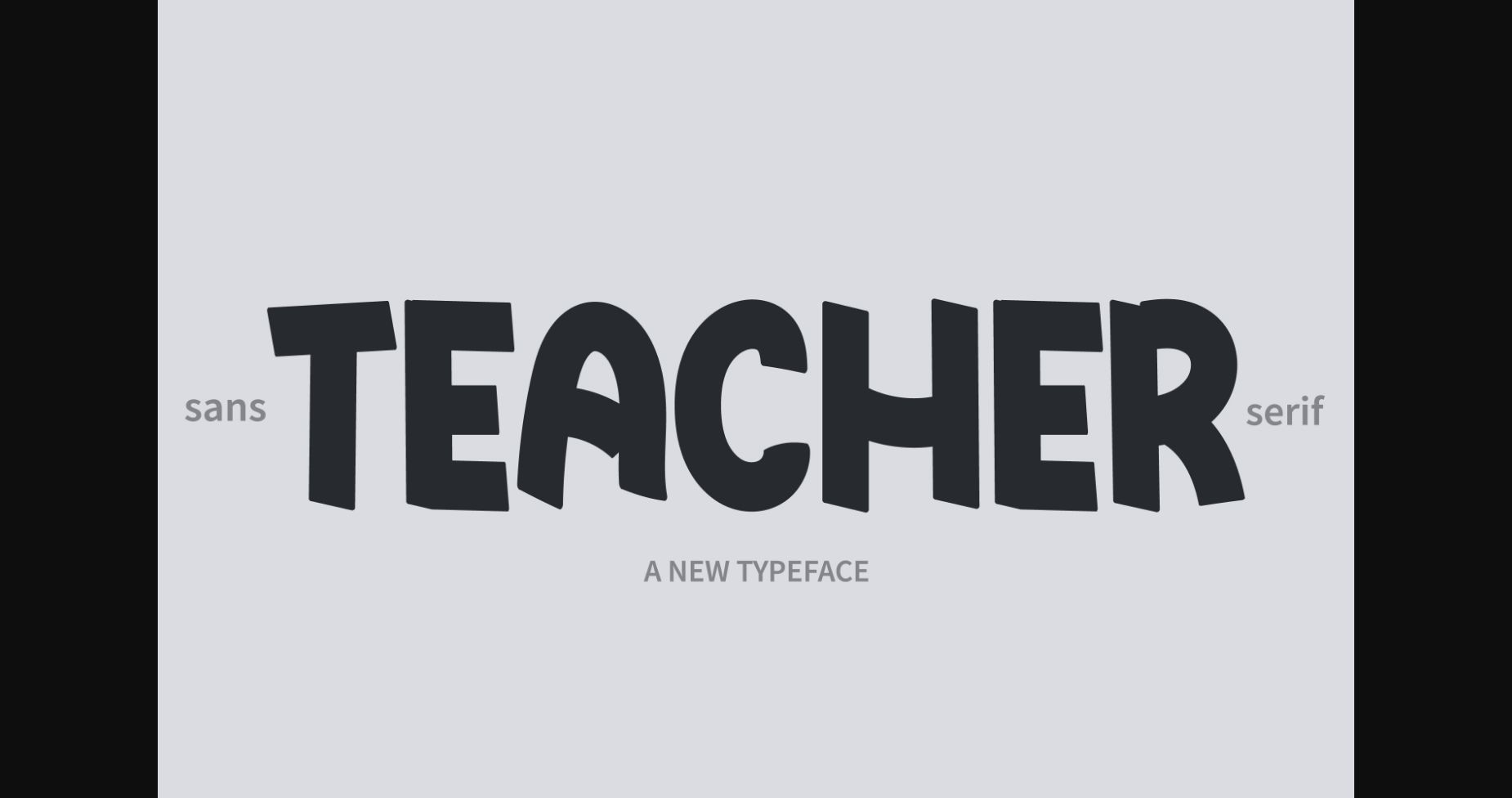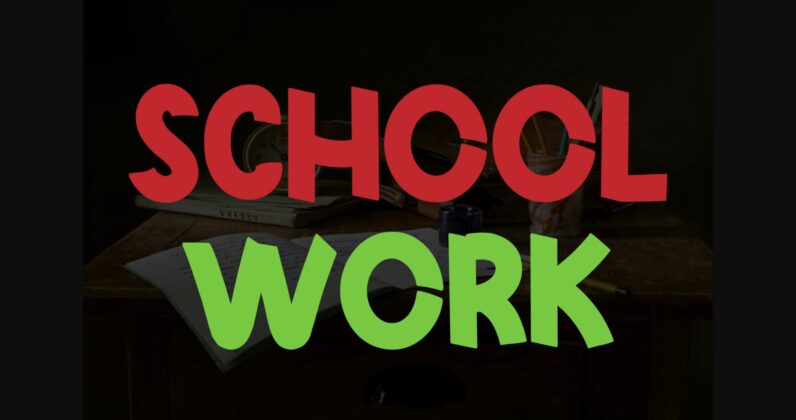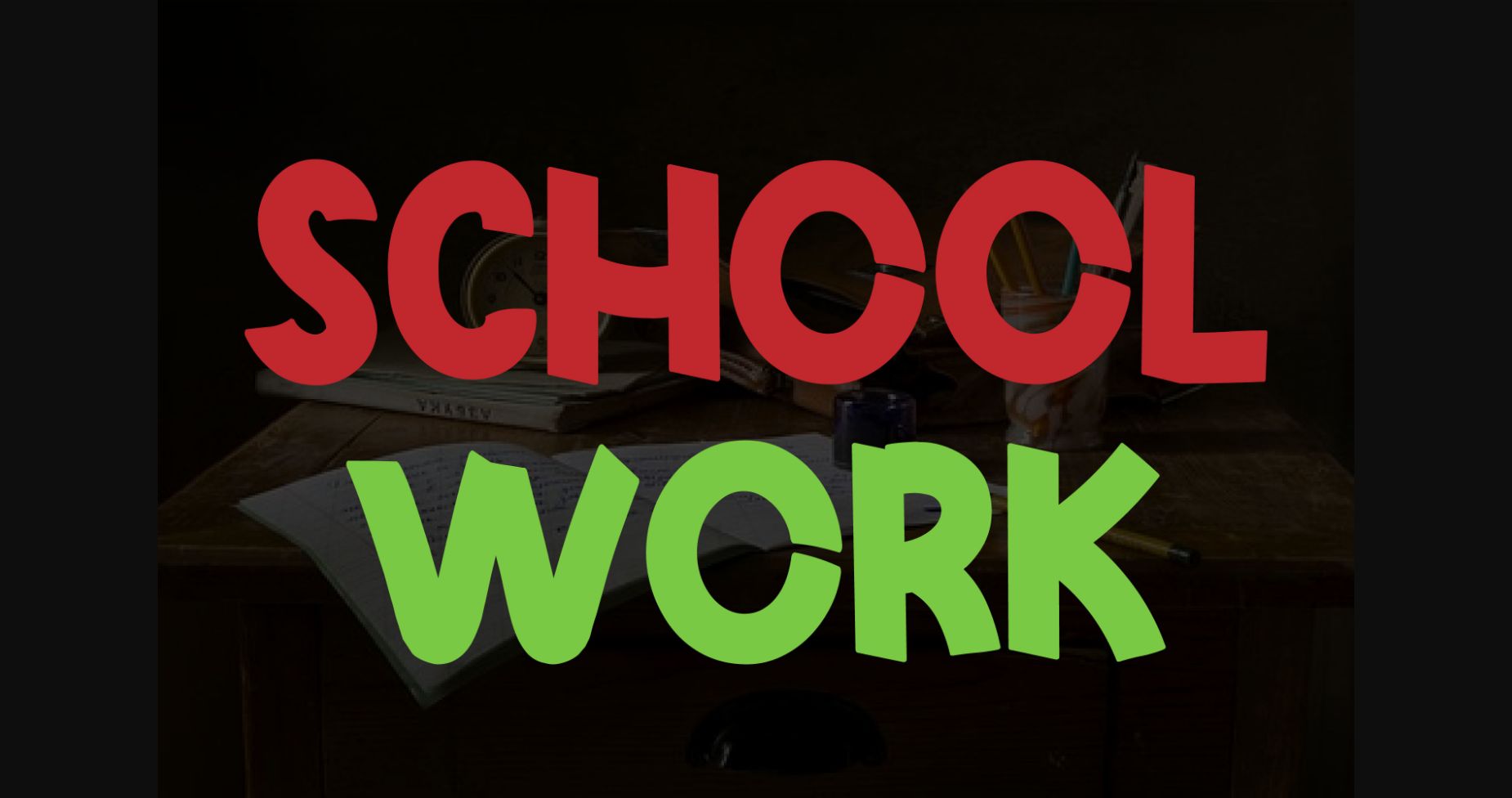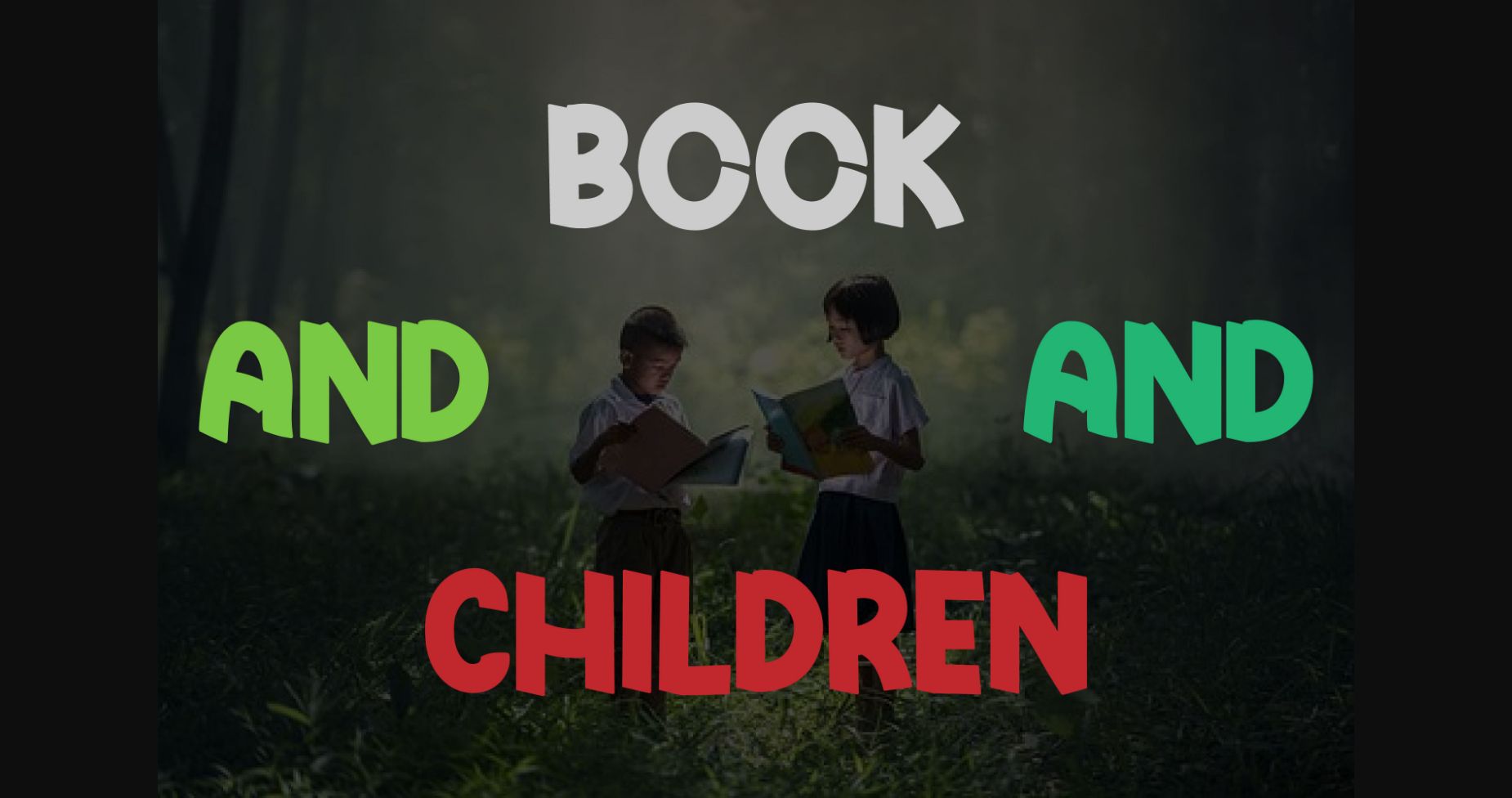
About Teacher Font
Teacher sans serif is a fun and quirky all-caps serif font. Add it to your crafty ideas, and enjoy the results! It will look great -on cards, promotional ads, social media posts, product packaging, and others.